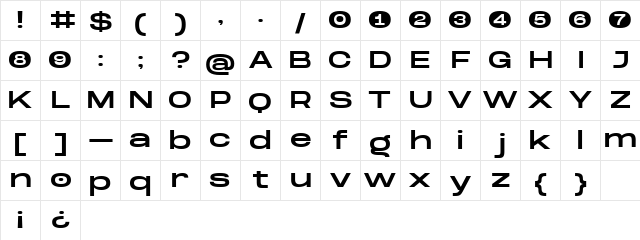
Dreadnoughtus Medium
Design Context for Dreadnoughtus Typeface
Dreadnoughtus is a composed and adaptable typeface that performs quietly and consistently across a wide range of design contexts.
Pro Tip: Use Dreadnoughtus in both headline and body roles to test its range before committing to a single application.